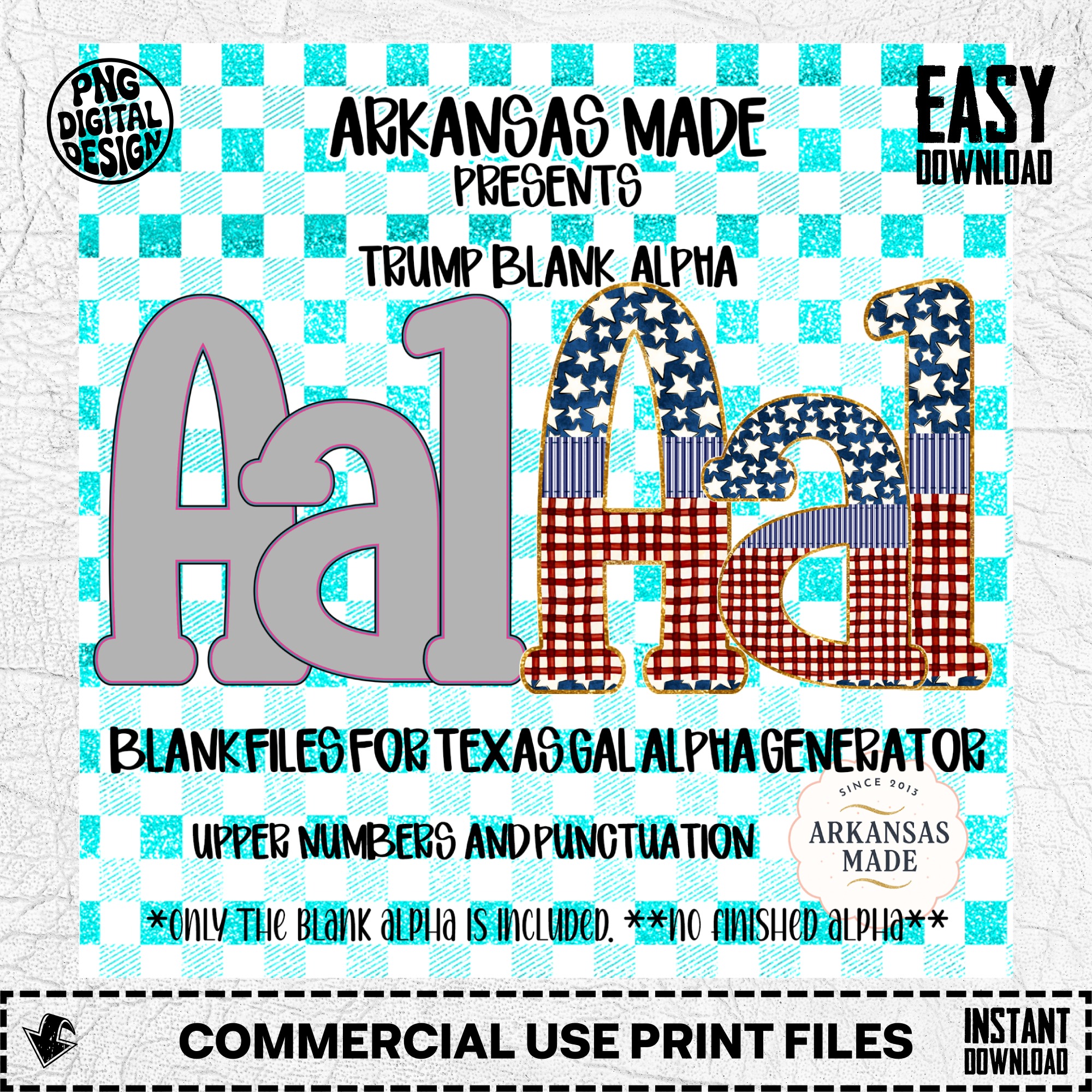
Unlock creativity with our Trump Blank Alpha PNGs for the Texas Gal Alpha Generator. Get patriotic digital letters, numbers, punctuation, ideal for DIY crafts and sublimation. Embrace Americana vibes with stars, stripes, and faux gold print accents, empowering crafters, small business owners, and Trump supporters to create unique, personalized merchandise. Perfect for 4th of July, political events, or general patriotic themes, adding a distinctive touch to any project.